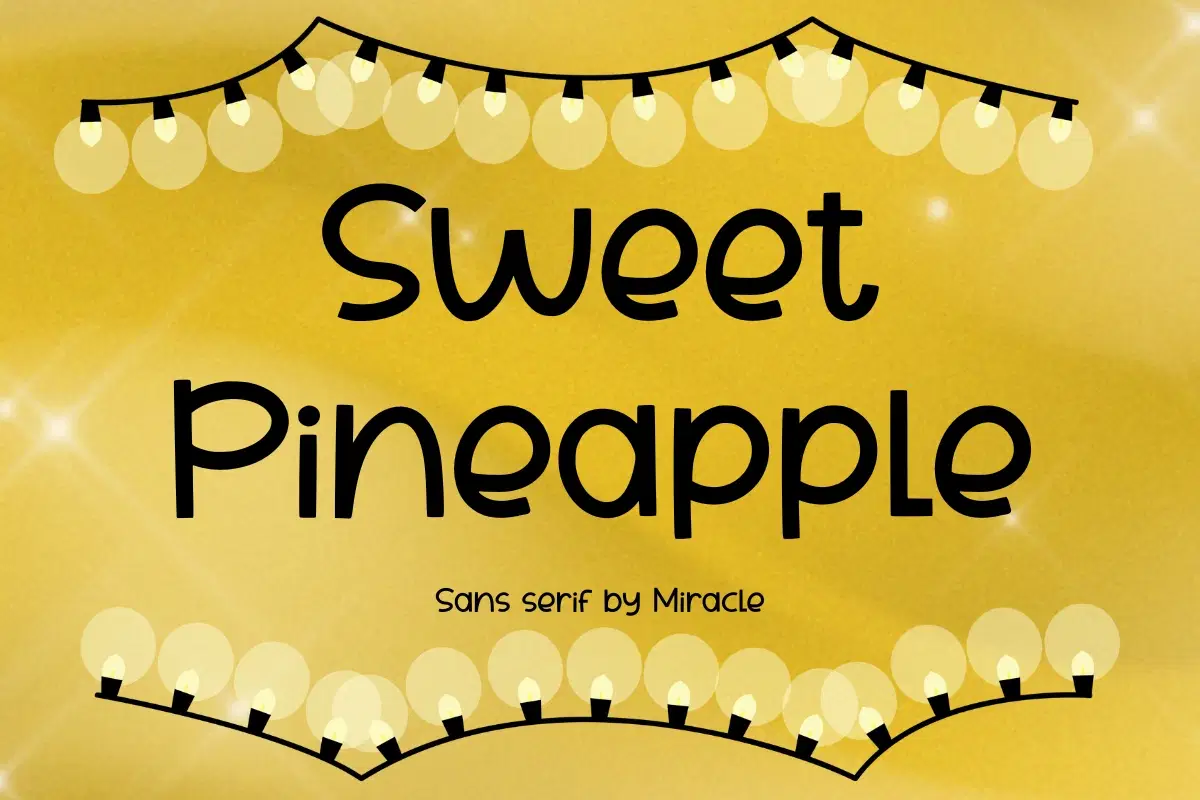
Sweet Pineapple - Handwritten Font
Bring a touch of sunshine and warmth to your creative projects with Sweet Pineapple, a vibrant sans serif font by Miracle. Characterized by its balanced, rounded letterforms and a clean hand-drawn aesthetic, this font captures a sense of joy and approachability. It is the perfect choice for designs that need to feel modern, friendly, and full of positive energy.
Sweet Pineapple is designed for maximum versatility and high legibility. Its solid presence makes it stand out beautifully against bright backgrounds, making it an ideal asset for everything from tropical-themed branding to cheerful digital content.